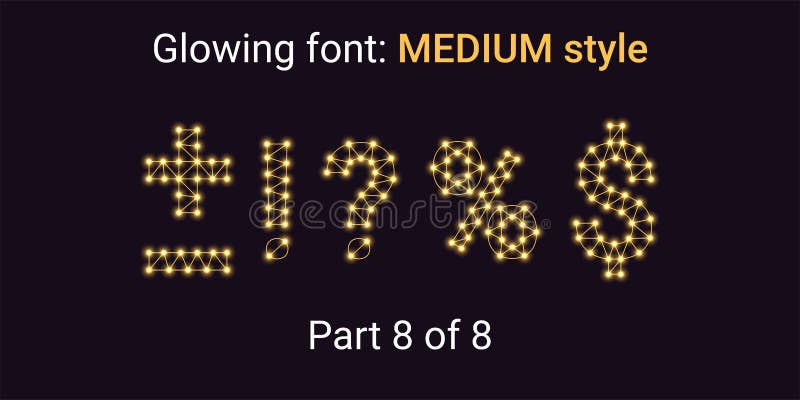
Golden Glowing font in the Outline style. Vector Alphabet with Connections, Lines, Polygonal structure and Glowing knots. Medium style, part 8 with symbols Plus, Minus, Percent, Dollar and other